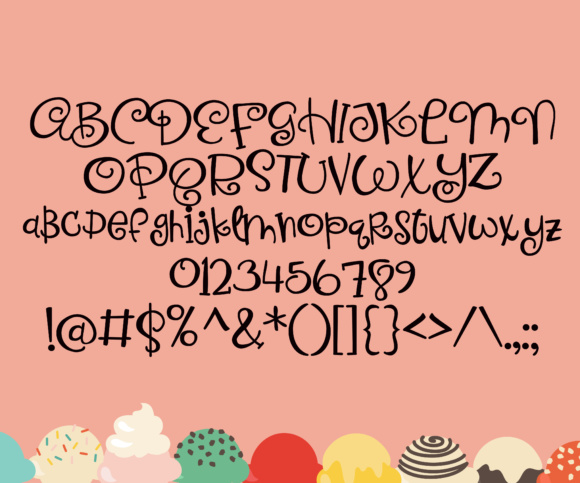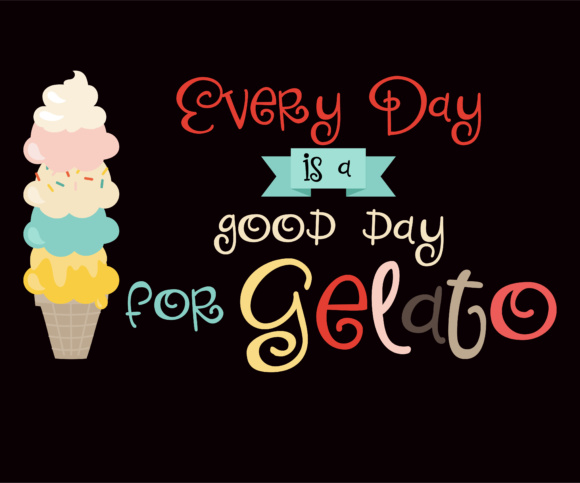
Gelato Font
db-ku.com - Script & Handwritten -- Gelato is a whimsical font with a mix of curls and friendliness. This casual serif font is a great way to give your designs a highly stylish appeal without skimping on legibility.